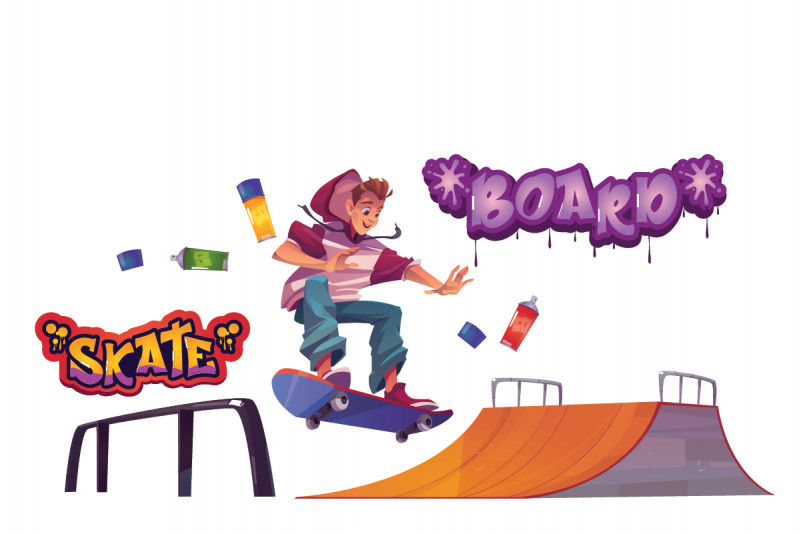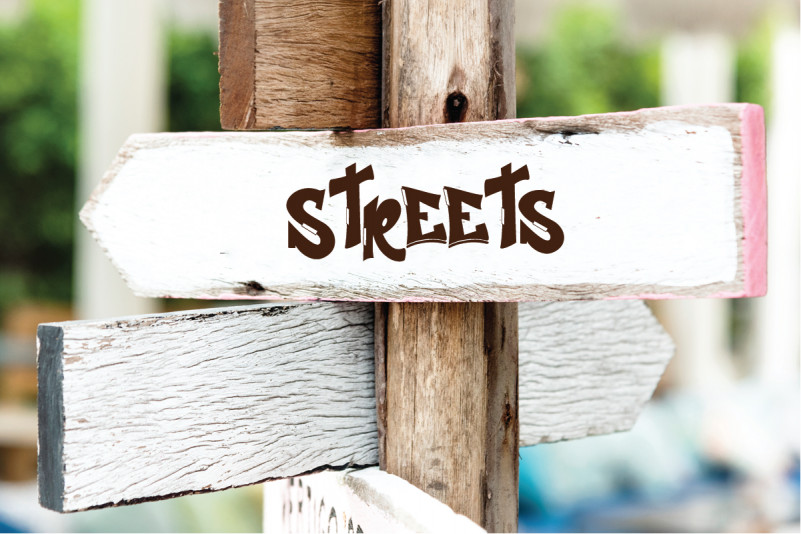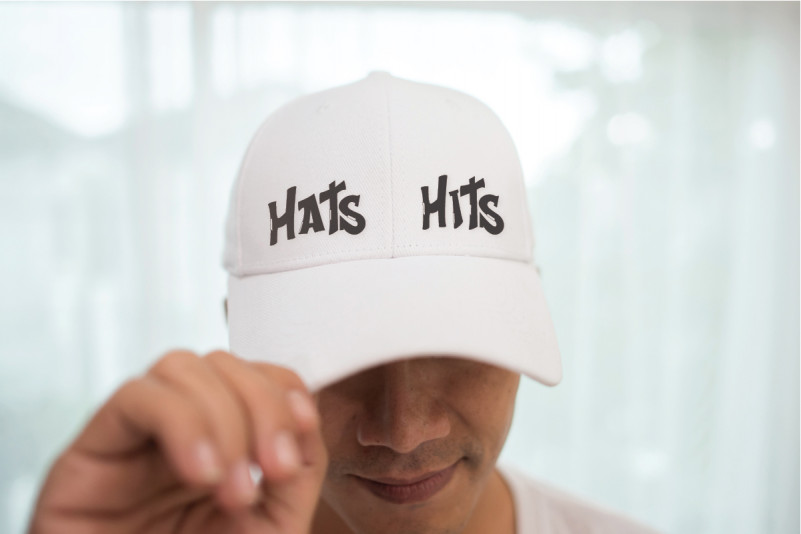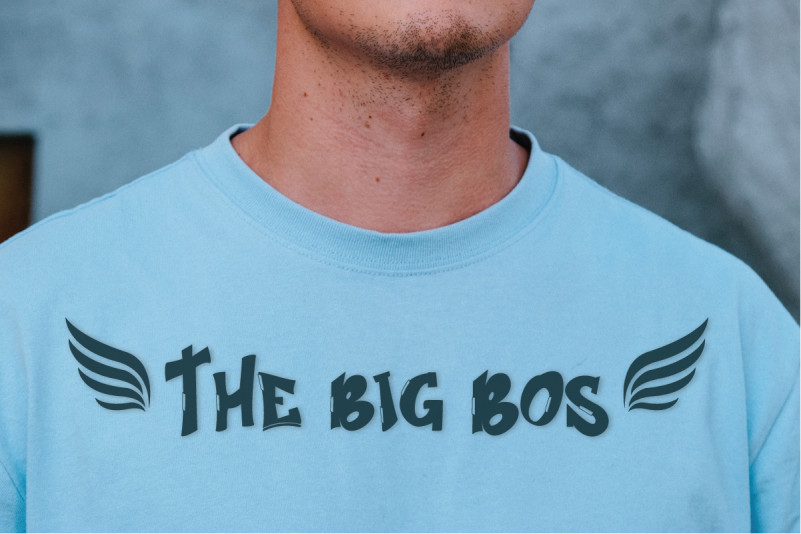
Streetart Font
Streetart Display Font
This font will be great for any projects (require extended license) including : branding, logo, promotion, flyer, brochure, comic etc.